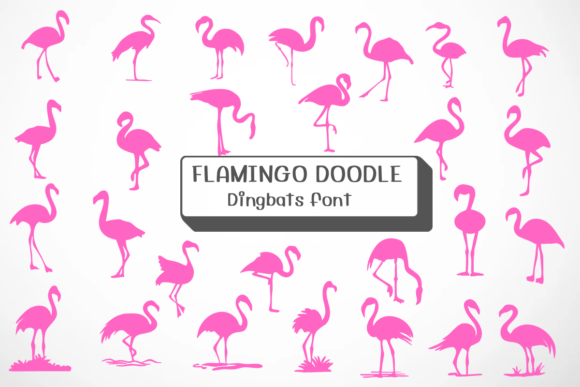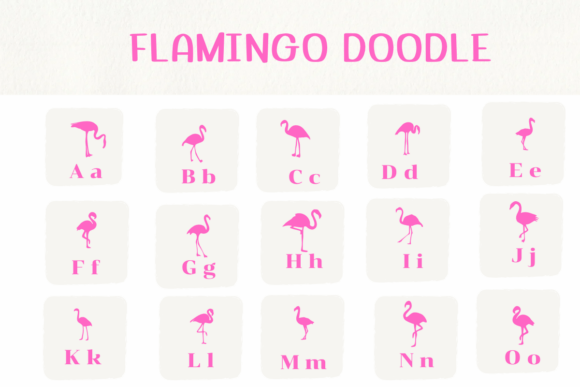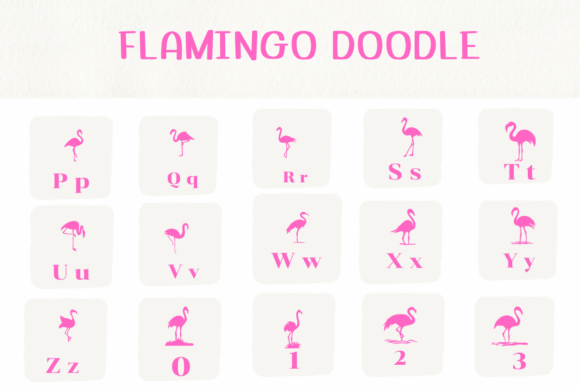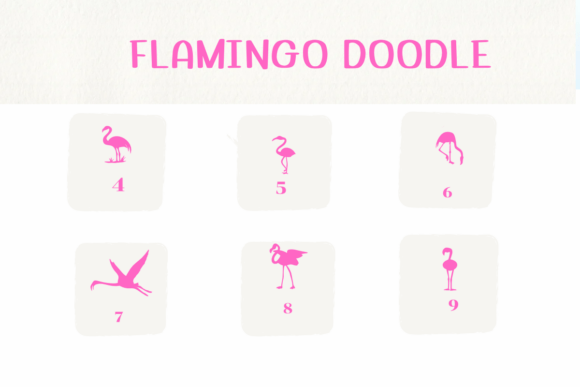
Flamingo Doodle Font
About the Flamingo Doodle Font
The Flamingo Doodle Font offers a perfect balance of form and function for your design needs. Flamingo Doodle is a playful dingbat font featuring charming flamingo silhouettes in various poses and styles. Perfect for adding a touch of tropical whimsy to your designs, this font is ideal for invitations, stationery, children’s projects, logos, and more. Add a splash of creativity with these delightful flamingo icons!
Flamingo Doodle’s playful nature makes it ideal for projects needing a lighthearted touch, such as children’s books, branding for summer events, or playful social media graphics. It excels in headlines, short phrases, and logos where its unique character can shine. However, its limited character set and decorative style make it unsuitable for body text or UI elements requiring high readability.
Consider pairing Flamingo Doodle with a clean sans-serif like Open Sans for contrast and readability when using it in logos or short text blocks. For a more whimsical feel, a script font like Great Vibes could complement its playful energy. Avoid pairing it with overly serious or geometric typefaces, as this would clash with its inherent lightheartedness.
The font’s overall personality is undeniably cheerful and summery, making it a strong choice for brands targeting a young, fun-loving demographic. Its informal style lends itself well to projects that celebrate joy and carefree energy.
Flamingo Doodle Font Example